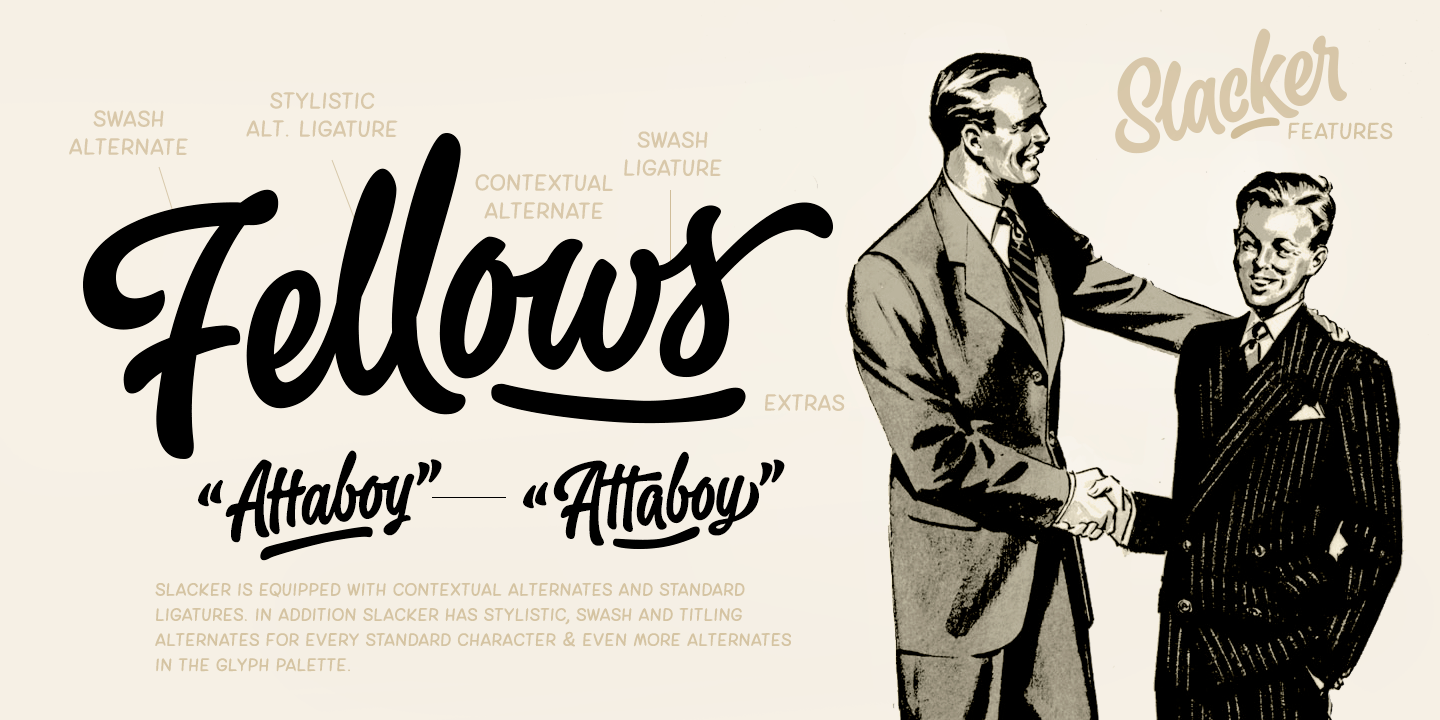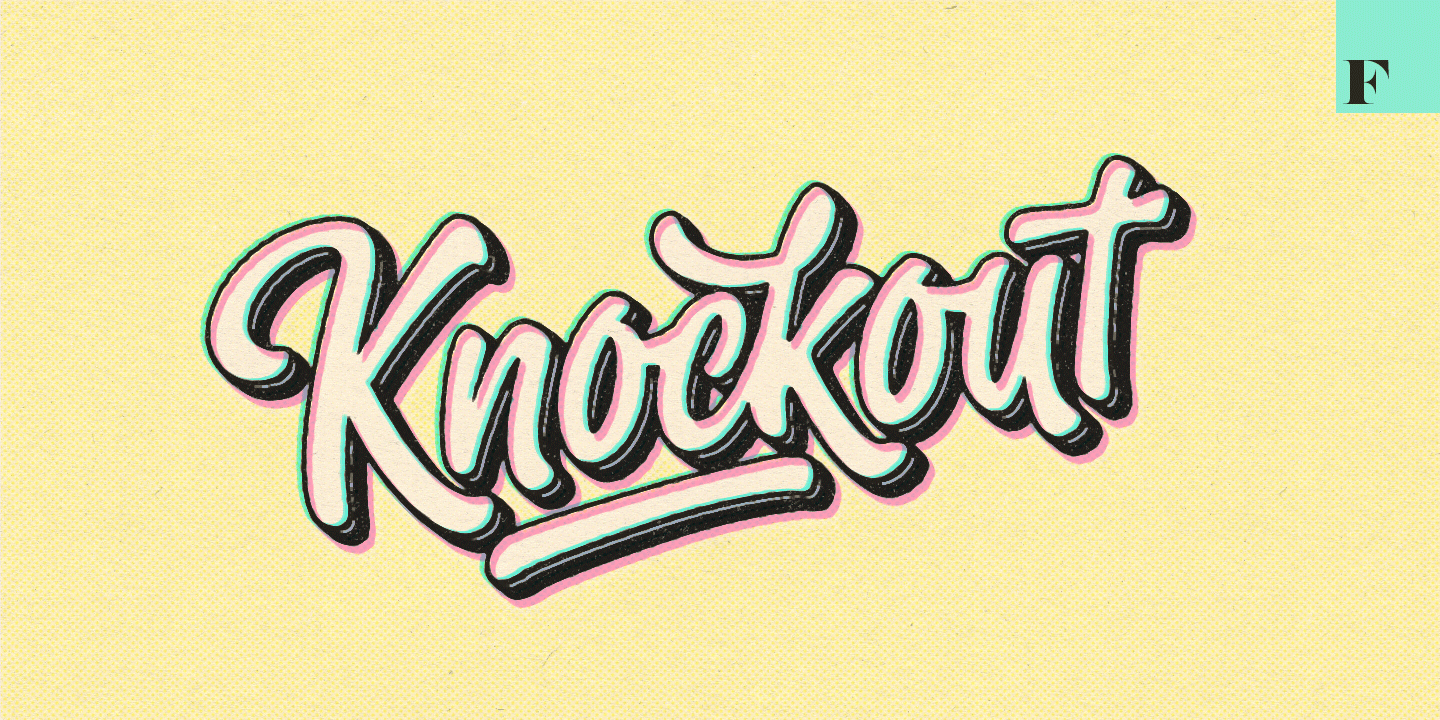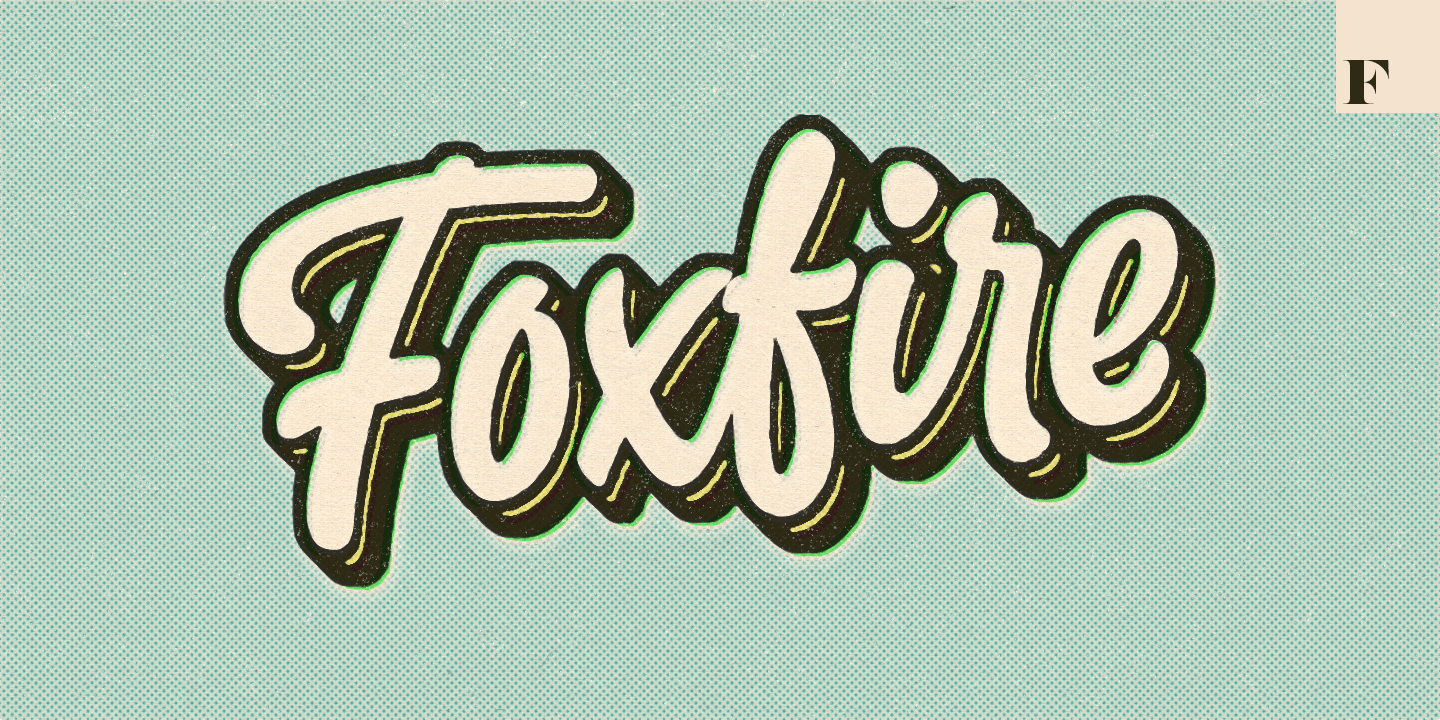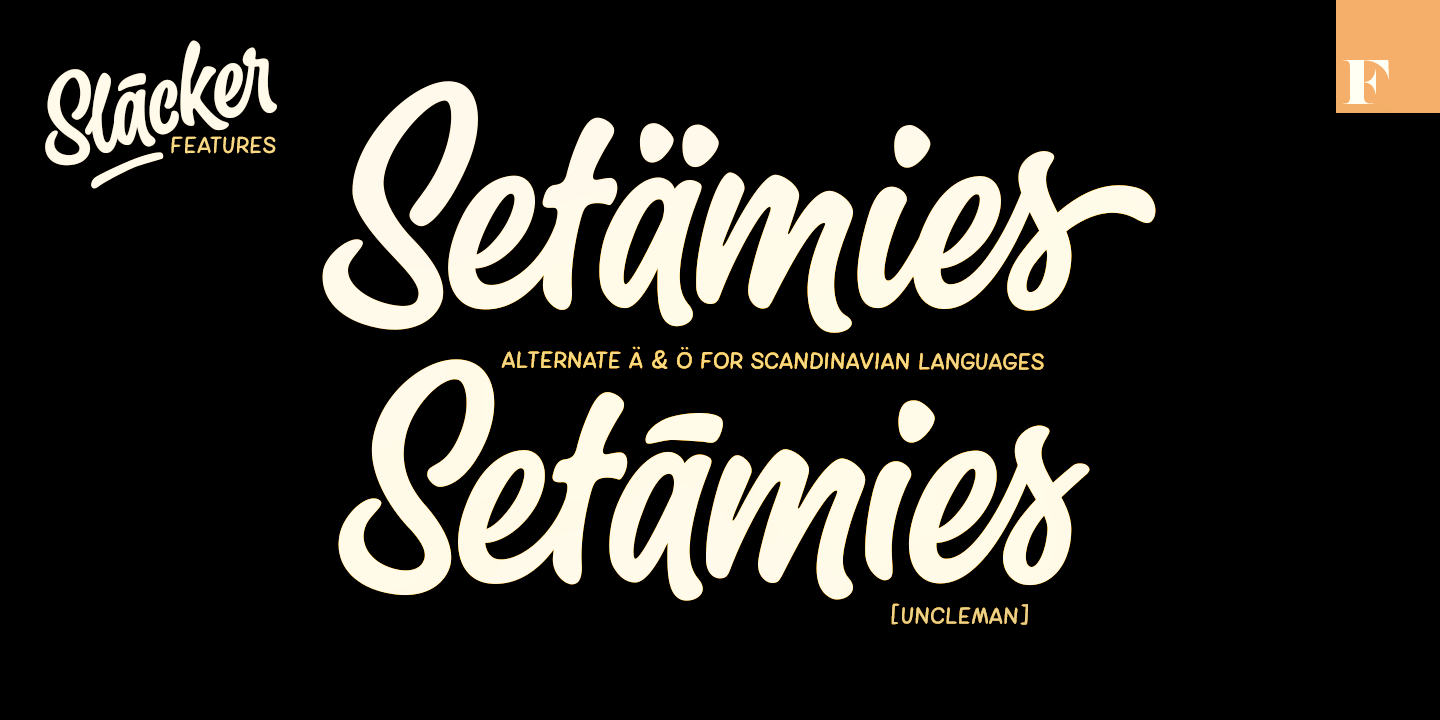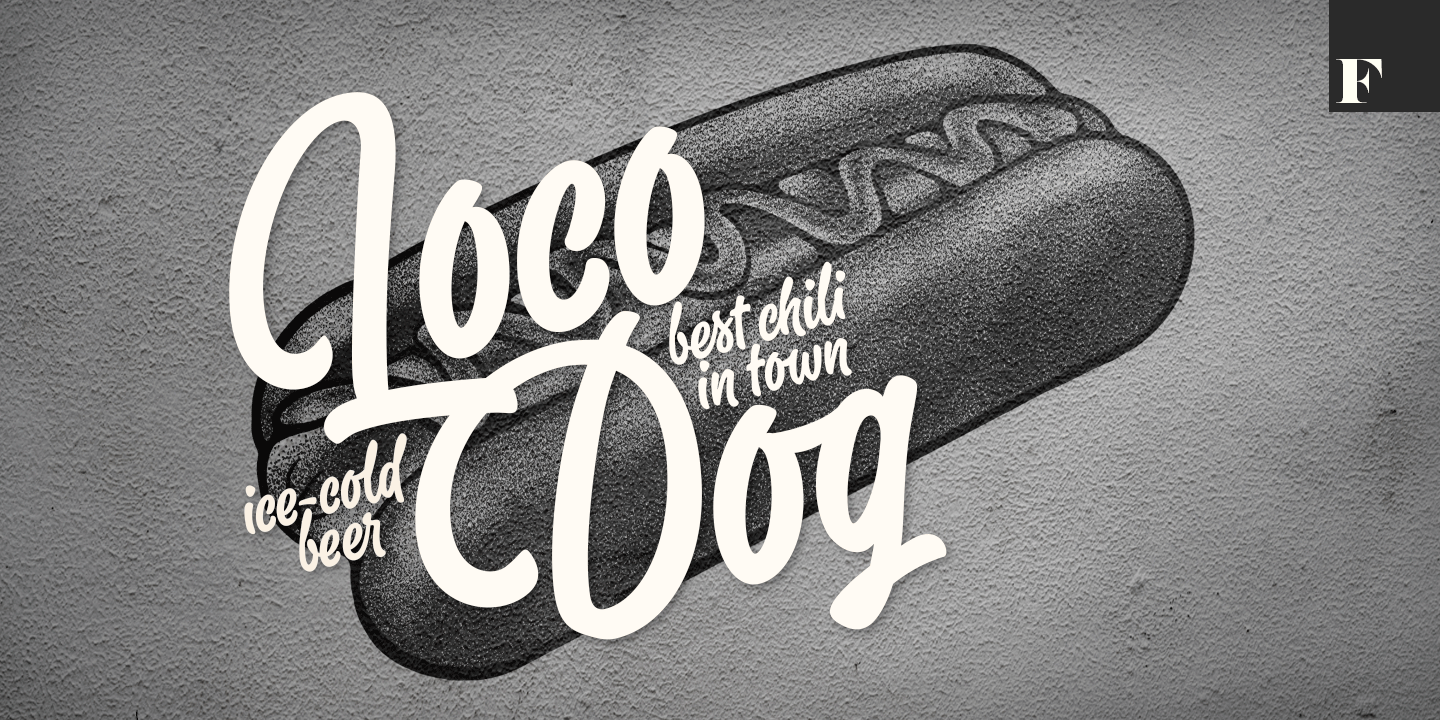
About Slacker
Slacker is a carefree brush script with soft features, low contrast and well balanced character forms. Slacker is excellent for creating easygoing yet catchy headlines, logotypes or even longer texts. Slacker is equipped with Standard Ligatures and Contextual…